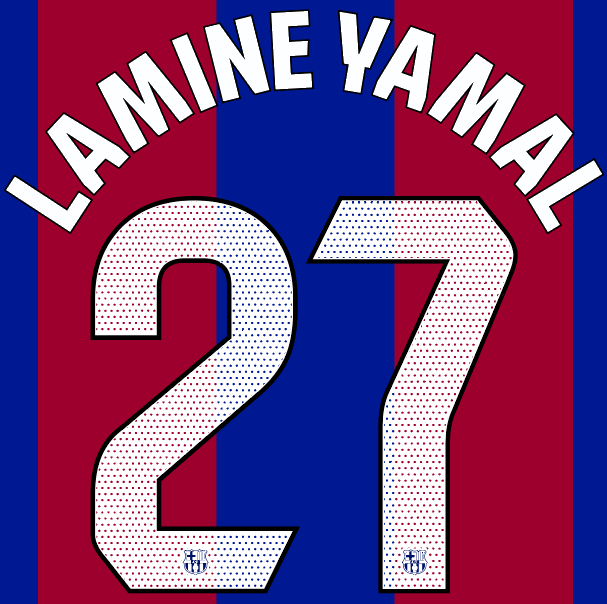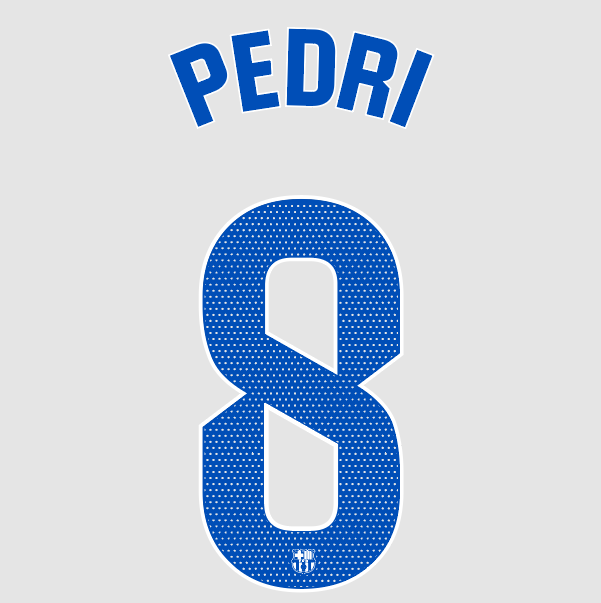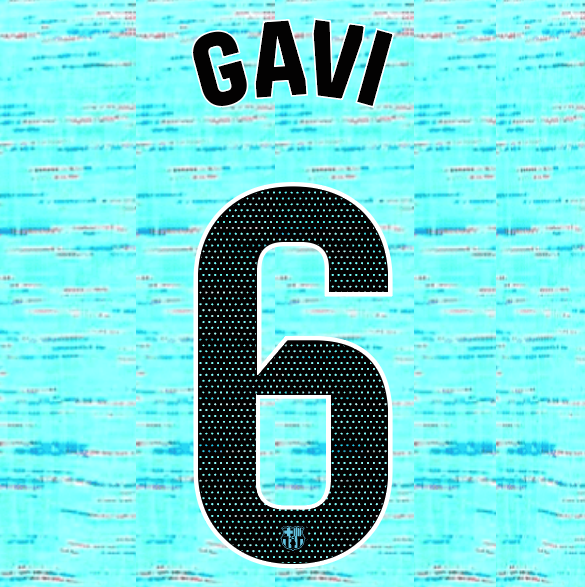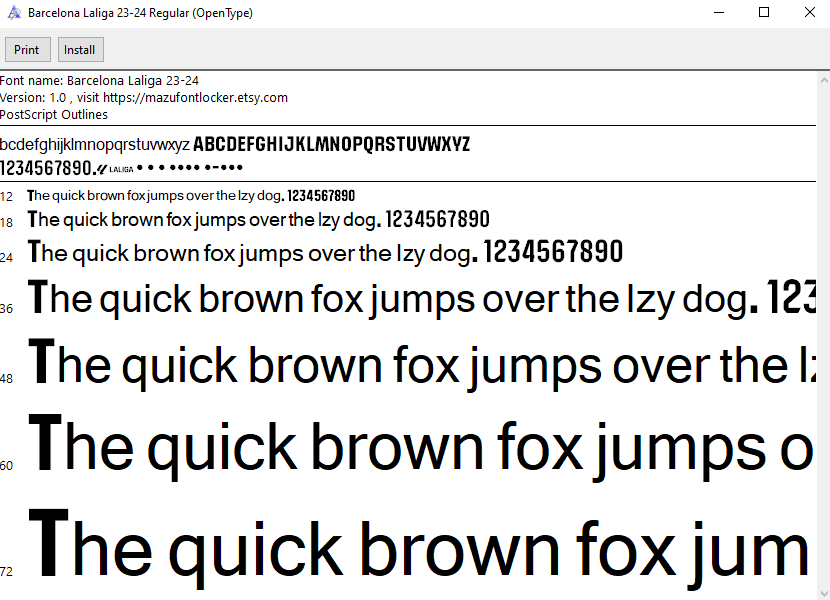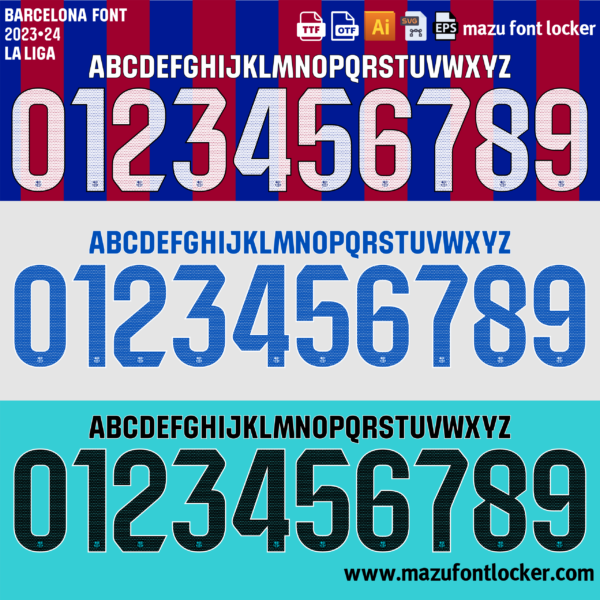
Barcelona 2023-24 Font Vector
Barcelona 2023-24 Laliga font, names and numbers, fully editable VECTOR file for customisation.
Complete design with the Barcelona 2023-24 Laliga numbering and lettering for Laliga Match .